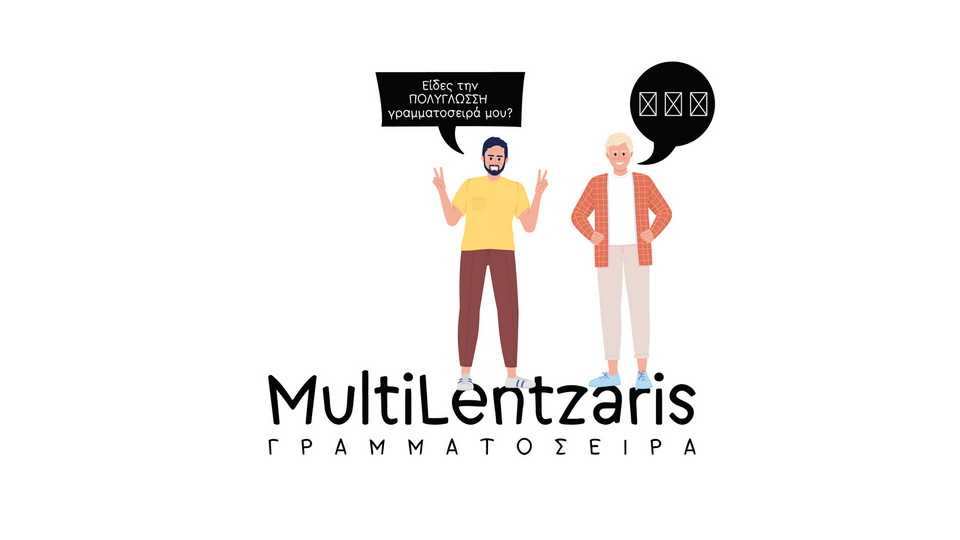
Download MultiLentzaris font, a casual handwritten typeface that effortlessly combines a clean look with an organic feel, bringing a touch of relaxed elegance to your projects.
Designer: Christos Lentzaris